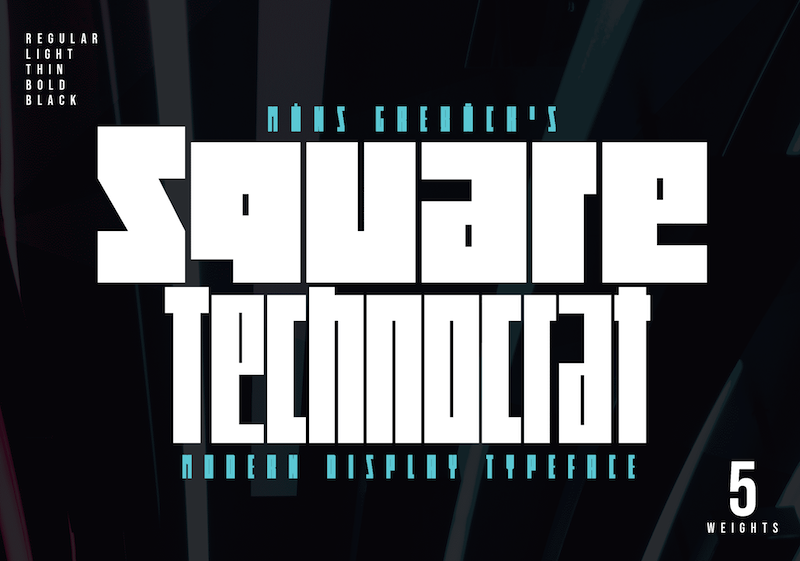
NOTE: This font is for PERSONAL USE ONLY! To purchase a commercial license, visit: http://mn.sg/square-technocrat Square Technocrat is a sharp, geometric font that embodies the essence of structure and modernity. Drawing inspiration from cube-like forms and contemporary architecture, this font family is perfect for designs that require a strong, stable presence. For questions, please visit www.mansgreback.com/faq |